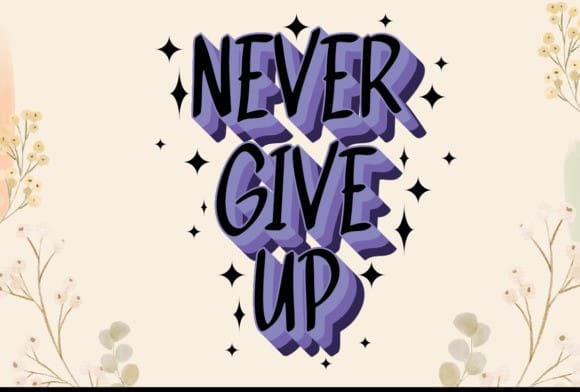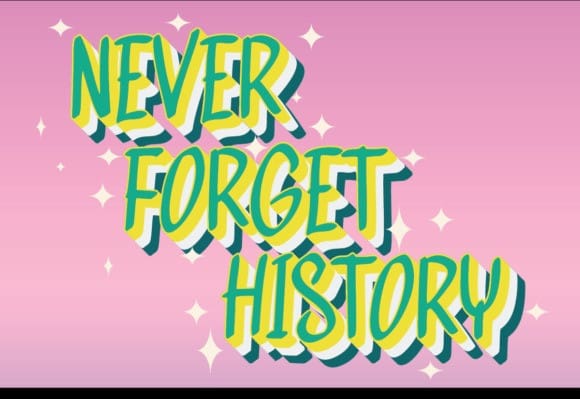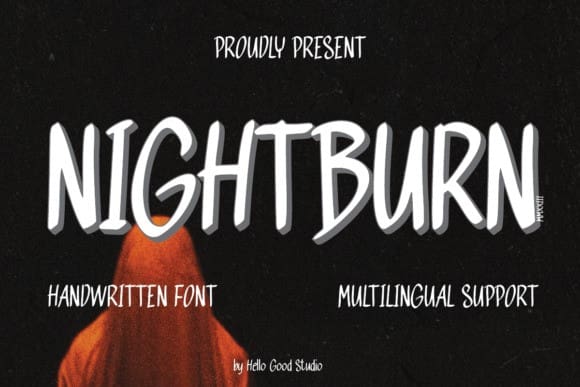
Nightburn Cute Font
Nightburn Cute Font is a very natural and unique handwritten font, masterfully designed to become a true favorite. It maintains its classy calligraphic influences while feeling contemporary and fresh. Fall in love with it and bring your projects to the highest levels!